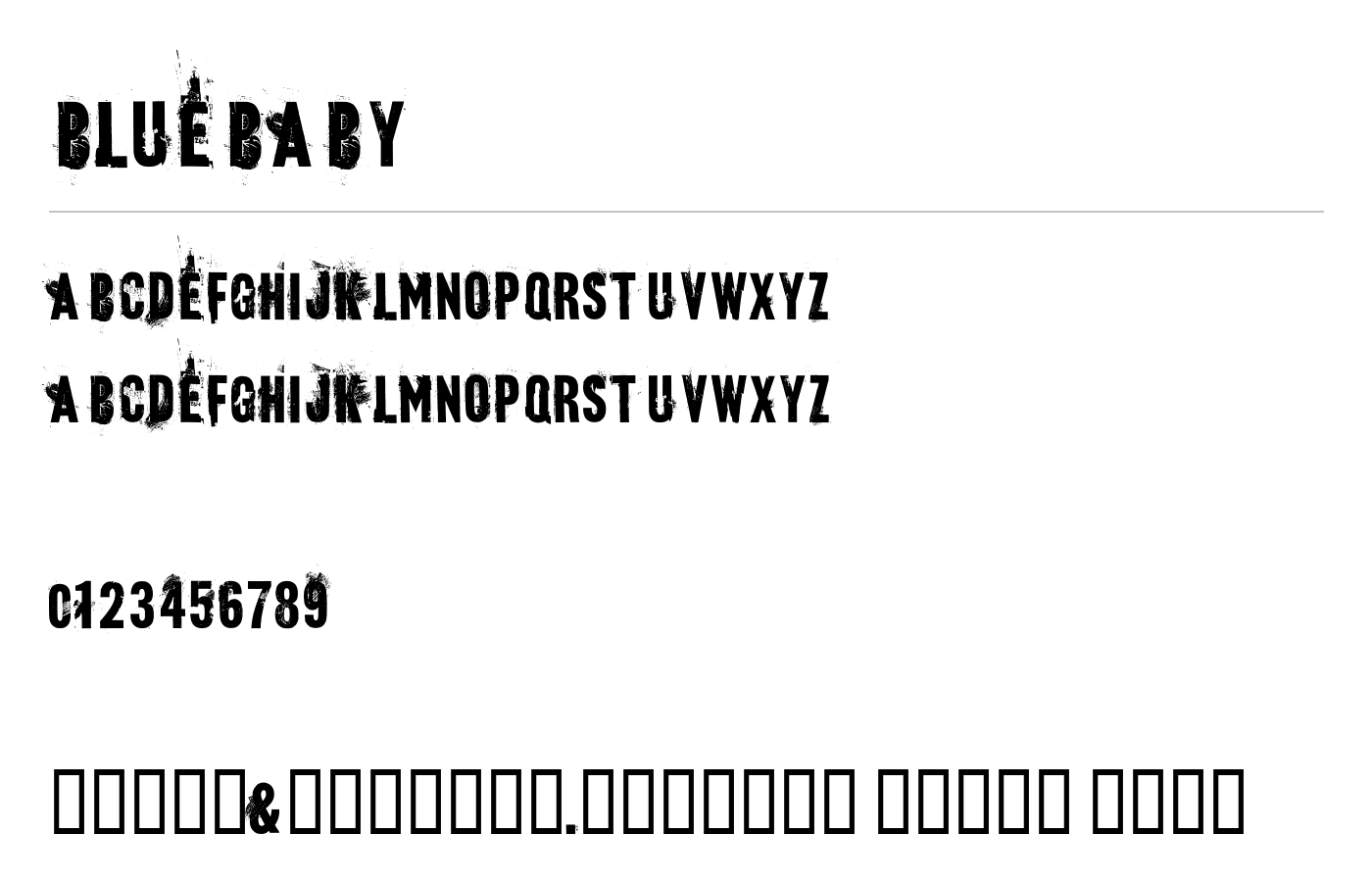
BlueBaby is a bold, condensed sans serif font featuring a distressed, grunge texture that gives it a raw, edgy character. Its tall, narrow letterforms with uneven wear make it ideal for striking headlines and designs that need a vintage or urban street-style vibe. This font works well for posters, branding, and creative projects where a strong, impactful presence is key.
blueBaby Font